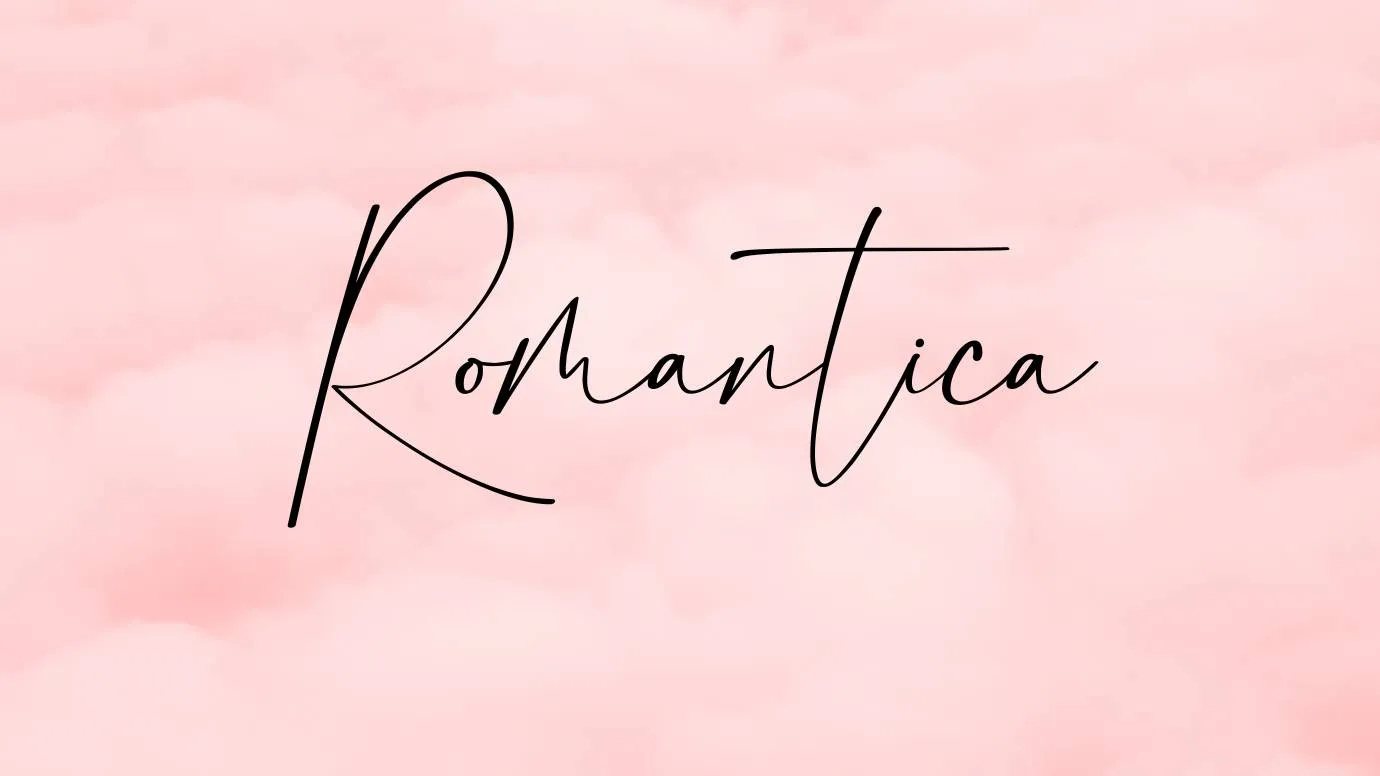
Romantica Font Family is a modern and classic script handwritten font that is Romantica Font. Romantica typeface was manufactured and established by a famous font studio which is Dav Studio.